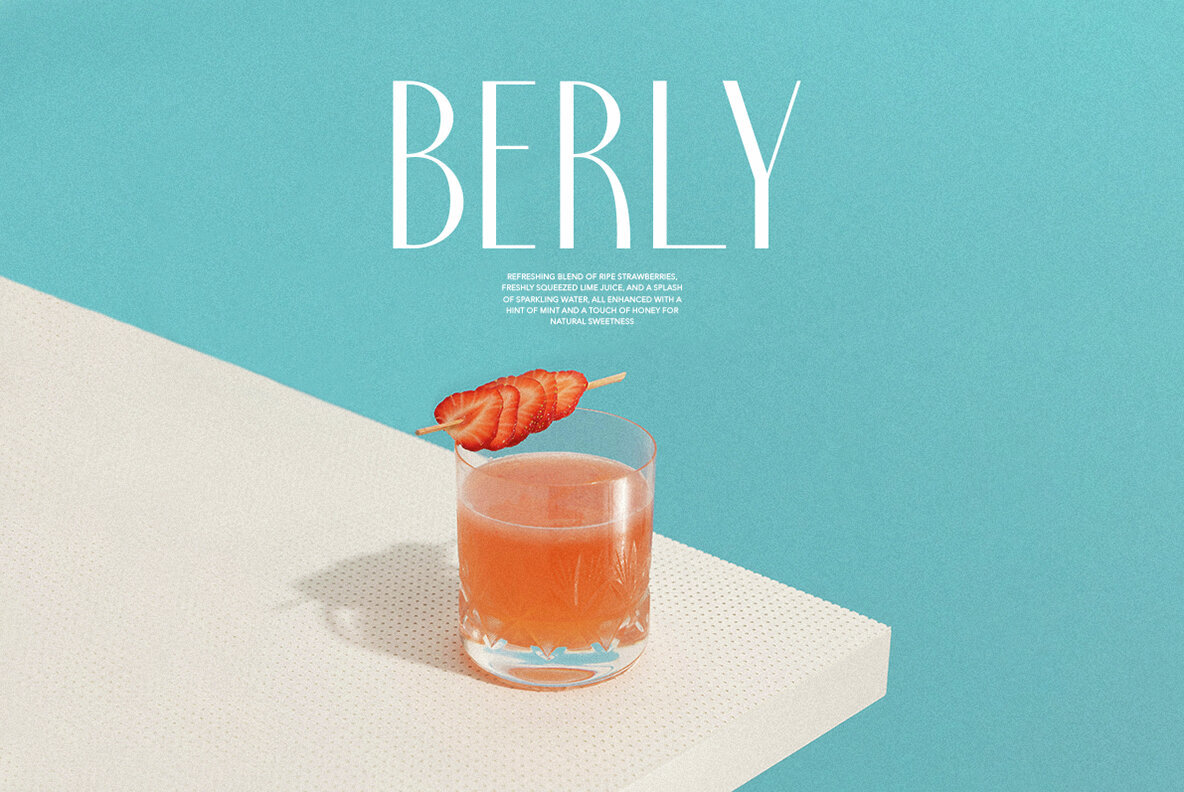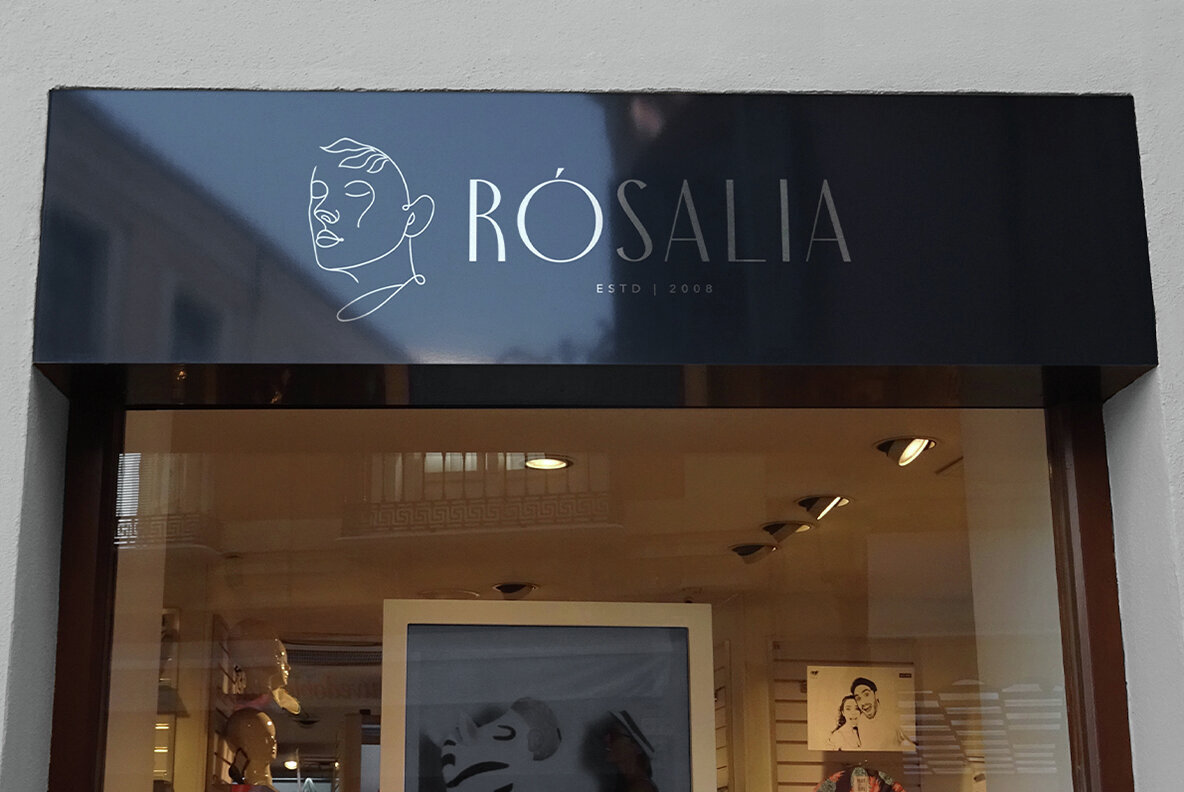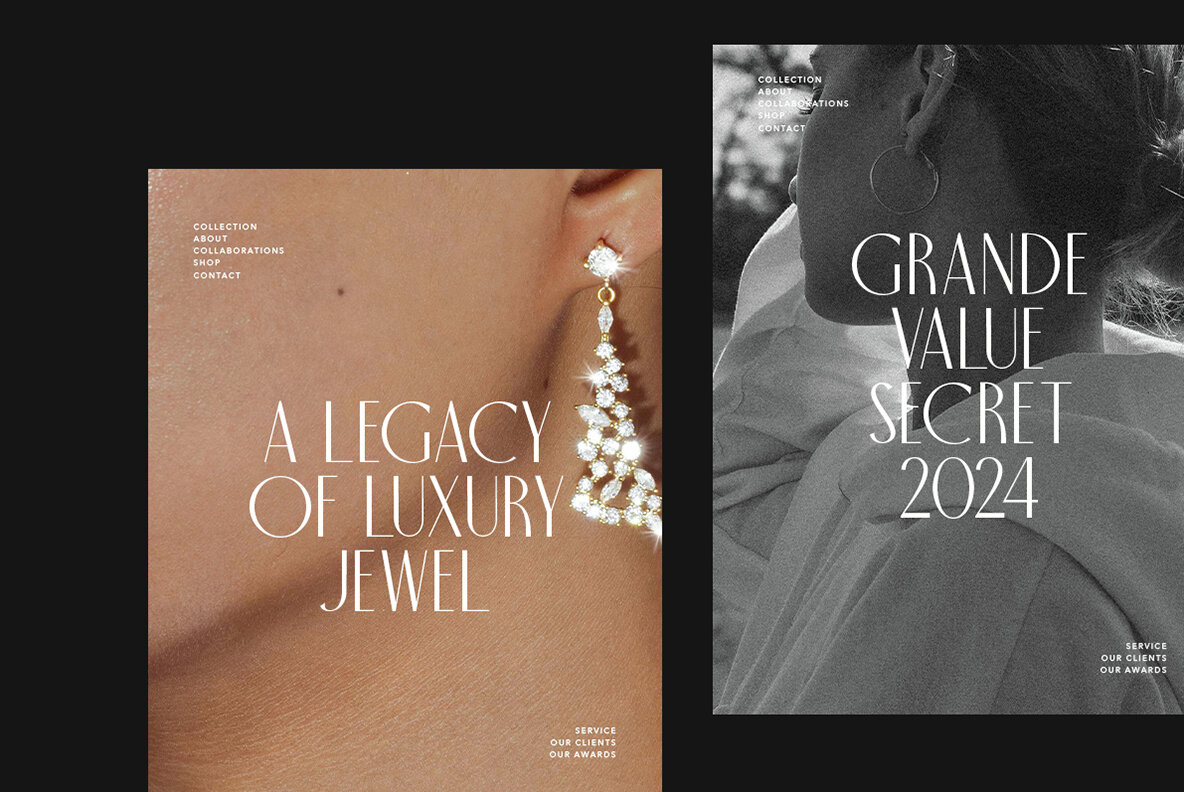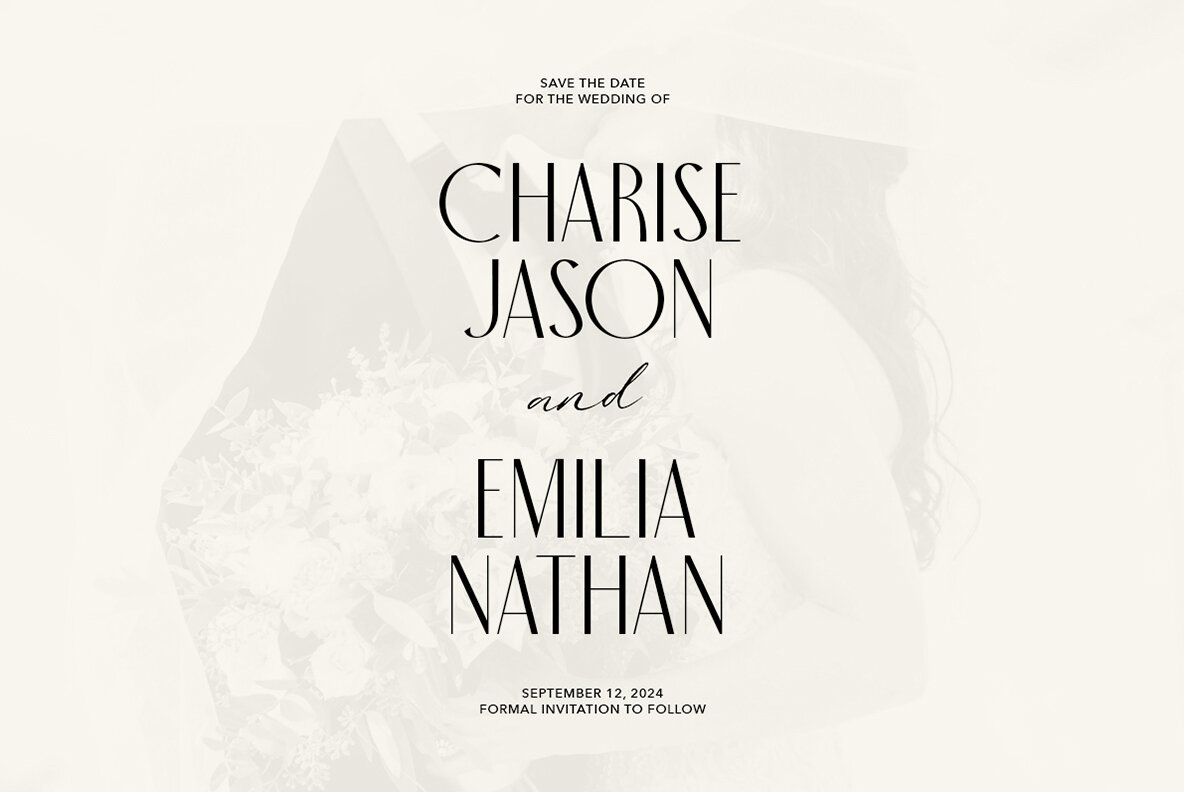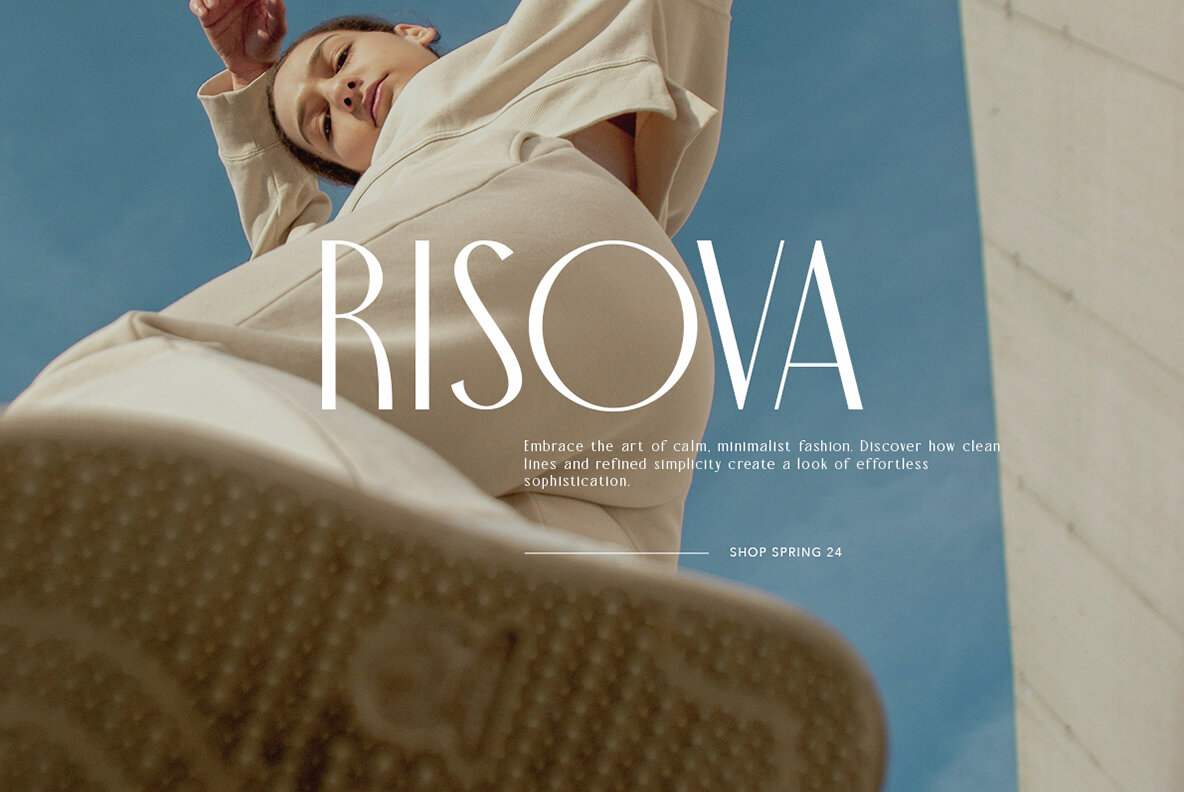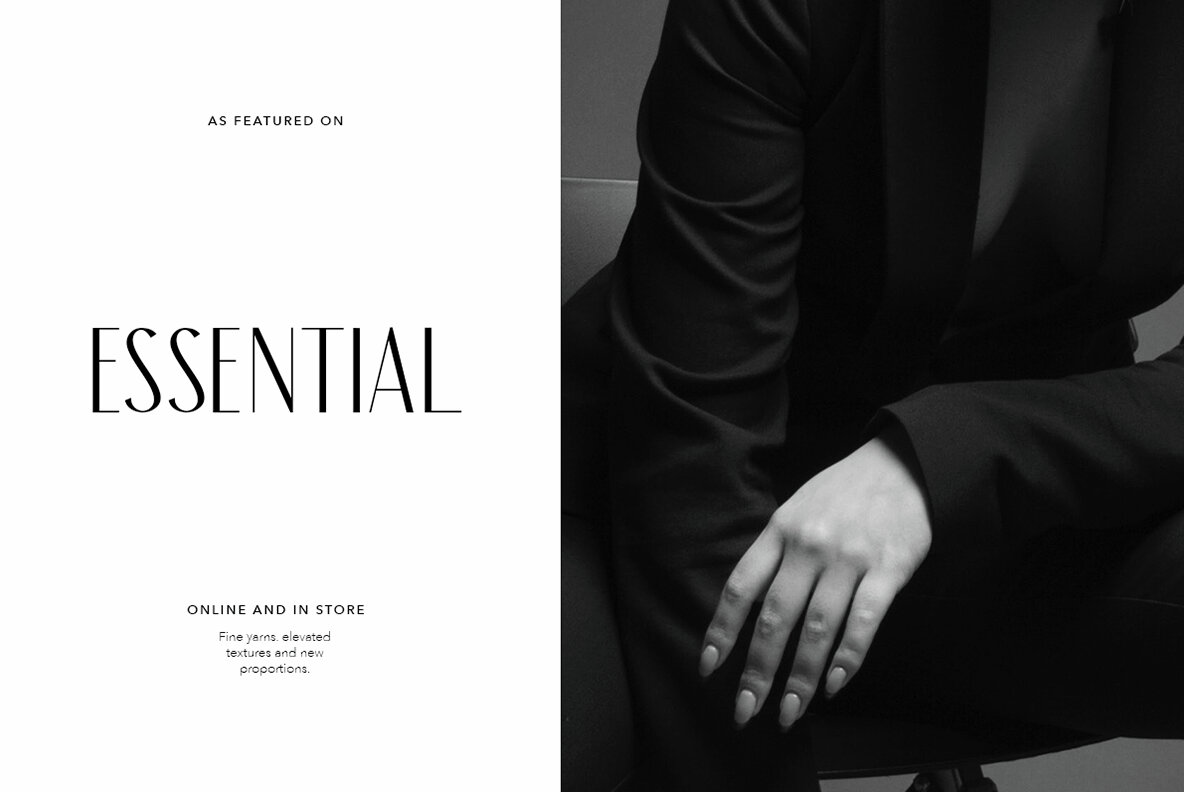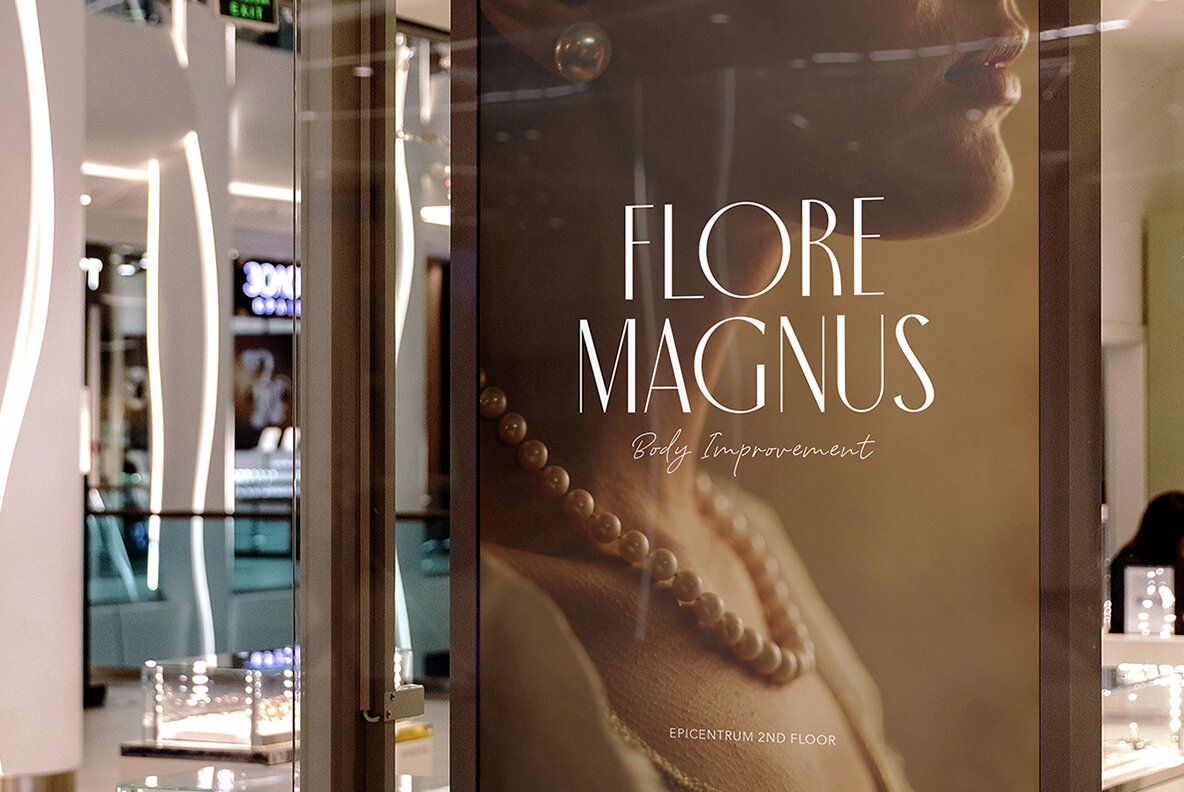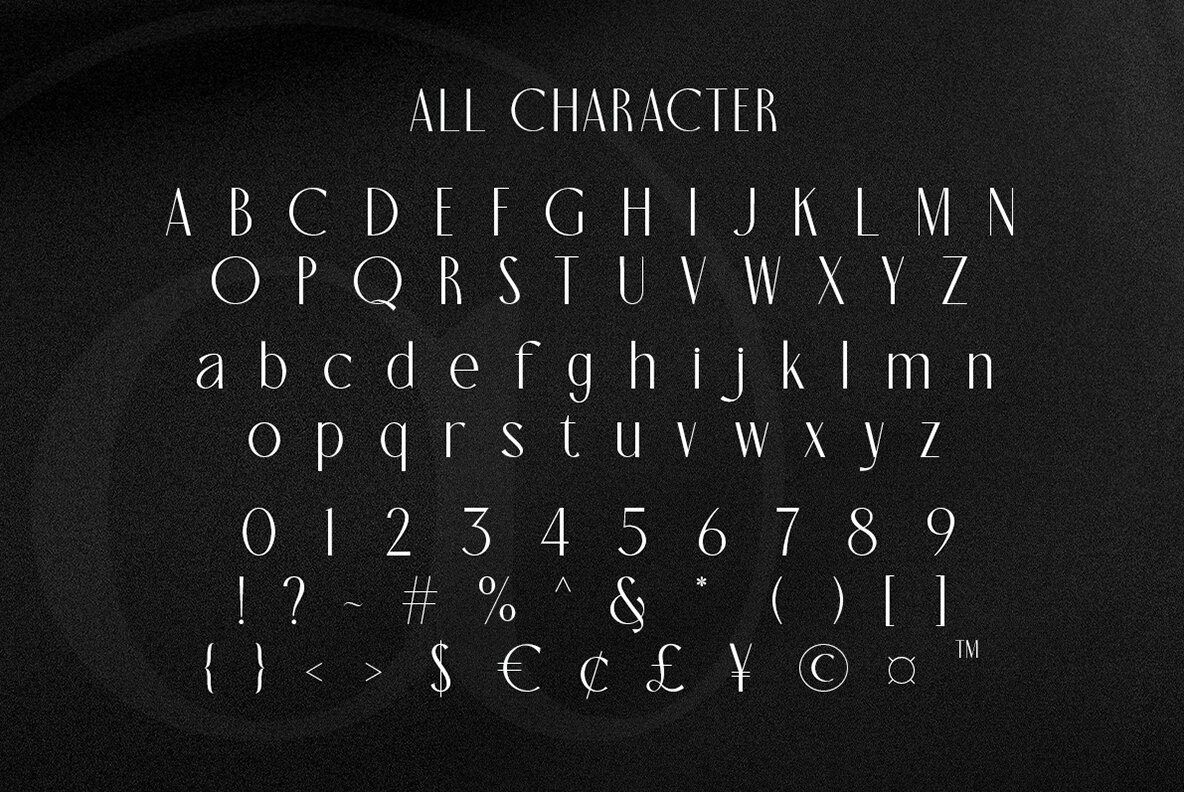
Suaco Font
Suaco Regular
Suaco features a clean, versatile sans-serif design in a regular weight, perfect for modern branding, minimalist layouts, and sleek presentations. Its refined style ensures effortless sophistication in any project. Elevate your designs with Suaco.